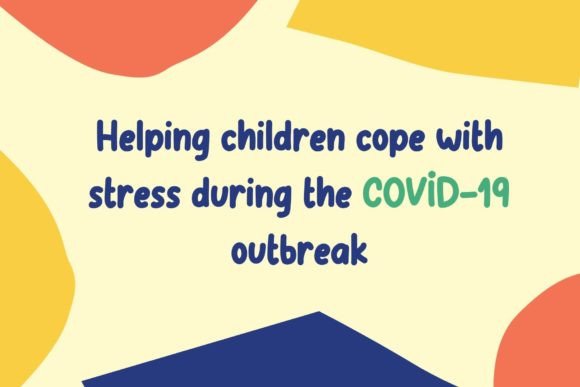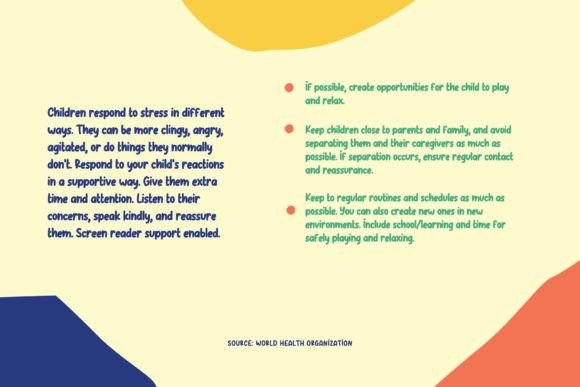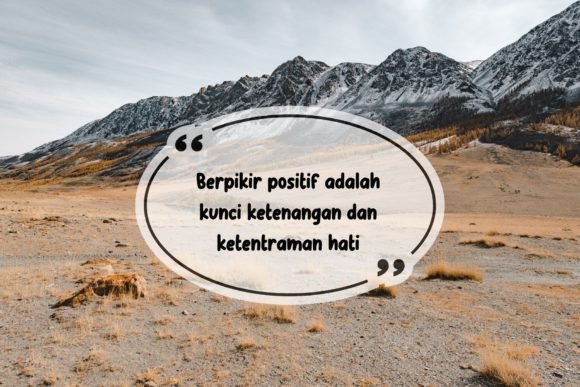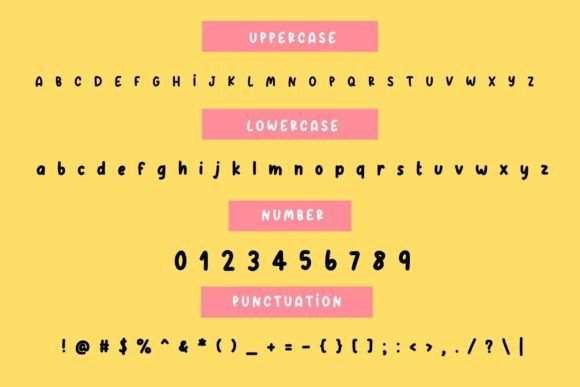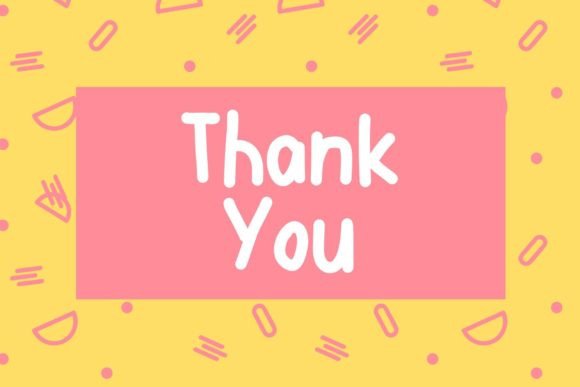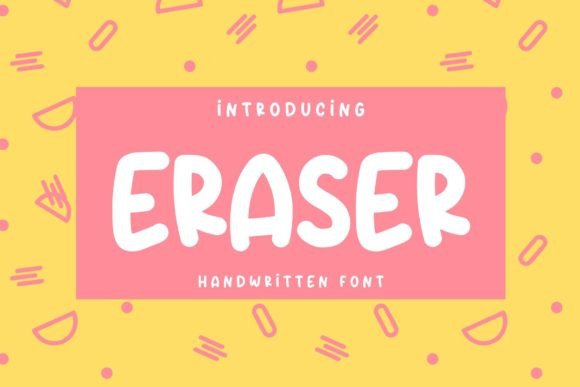
Eraser Font: The Playful and Authentic Handwritten Display Font
Are you looking for a font that embodies playfulness and authenticity? Look no further than Eraser Font, a cute handwritten display font that’s perfect for a wide range of design projects. From blog posts and logos to branding, ads, invitations, greeting cards, planners, photo albums, decorations, and more, Eraser Font is the ideal choice for designers and crafters who want to add a personal touch to their work.
What is Eraser Font?
Eraser Font is a unique and charming handwritten display font that’s designed to bring a sense of playfulness and authenticity to your designs. Its cute and quirky style makes it perfect for projects that require a friendly and approachable tone. Whether you’re creating a logo, branding materials, or social media graphics, Eraser Font is sure to make your designs stand out.
Key Features of Eraser Font
- Playful and Authentic Style: Eraser Font has a unique and charming style that’s perfect for designers and crafters who want to add a personal touch to their work.
- Handwritten Display Font: Eraser Font is a handwritten display font that’s designed to make a statement. Its bold and expressive style makes it perfect for headlines, titles, and other display text.
- Versatile: Eraser Font is a versatile font that can be used for a wide range of design projects, from blog posts and logos to branding, ads, invitations, greeting cards, planners, photo albums, decorations, and more.
- Easy to Read: Despite its playful style, Eraser Font is easy to read and understand, making it perfect for body text and other written content.
Uses of Eraser Font
Eraser Font is a versatile font that can be used for a wide range of design projects, including:
- Blog Posts: Add a personal touch to your blog posts with Eraser Font. Its playful style makes it perfect for headings, subheadings, and other display text.
- Logos and Branding: Create a unique and memorable logo with Eraser Font. Its bold and expressive style makes it perfect for logos, business cards, and other branding materials.
- Ads and Marketing Materials: Make your ads and marketing materials stand out with Eraser Font. Its playful style makes it perfect for headlines, titles, and other display text.
- Invitations and Greeting Cards: Add a personal touch to your invitations and greeting cards with Eraser Font. Its cute and quirky style makes it perfect for special occasions.
- Planners and Photo Albums: Create a unique and personalized planner or photo album with Eraser Font. Its playful style makes it perfect for headings, subheadings, and other display text.
- Decorations: Use Eraser Font to create custom decorations for parties, events, and other special occasions.
Tips for Using Eraser Font
Here are some tips for using Eraser Font in your designs:
- Use it for Headings and Titles: Eraser Font is perfect for headings and titles. Use it to add a playful touch to your designs.
- Mix it with Other Fonts: Eraser Font can be paired with other fonts to create a unique and interesting design. Try pairing it with a serif font for a contrasting look.
- Experiment with Colors: Eraser Font looks great in a variety of colors. Experiment with different colors to find the one that works best for your design.
- Use it for Body Text: While Eraser Font is perfect for headings and titles, it can also be used for body text. Use it to add a personal touch to your written content.
Eraser Font is a unique and charming handwritten display font that’s perfect for designers and crafters who want to add a personal touch to their work. Its playful and authentic style makes it perfect for a wide range of design projects, from blog posts and logos to branding, ads, invitations, greeting cards, planners, photo albums, decorations, and more. With its versatility, ease of use, and cute and quirky style, Eraser Font is sure to become a favorite in your design toolkit.